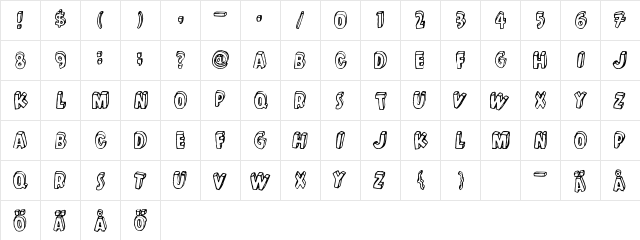
Kulminoituva Regular
Design Context for Kulminoituva Typeface
Kulminoituva is a composed and adaptable typeface that performs quietly and consistently across a wide range of design contexts.